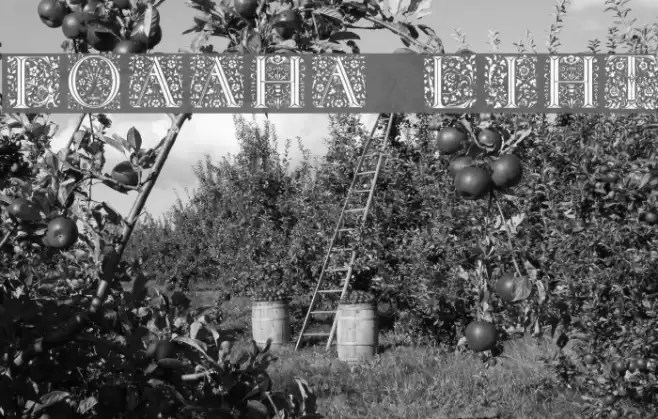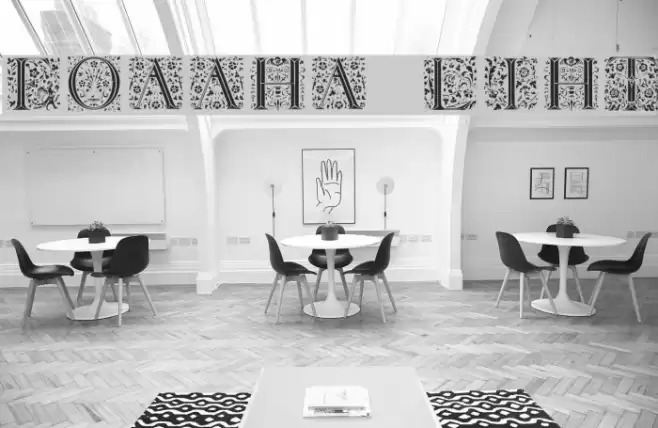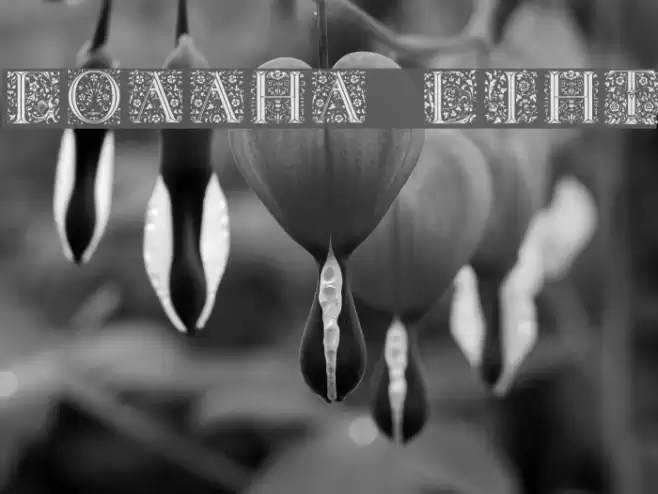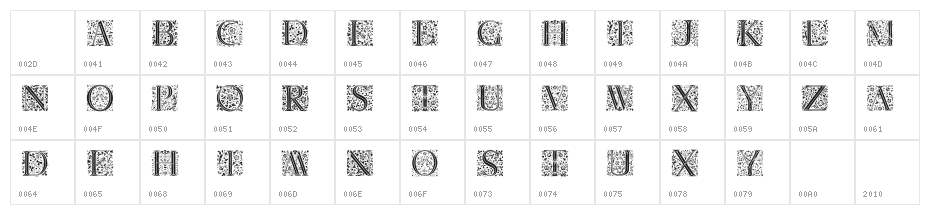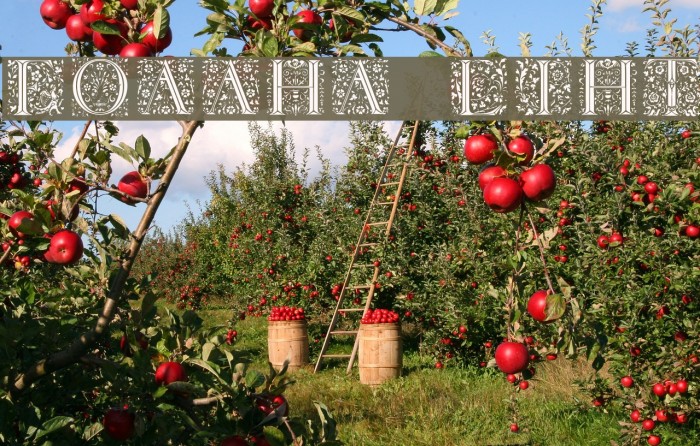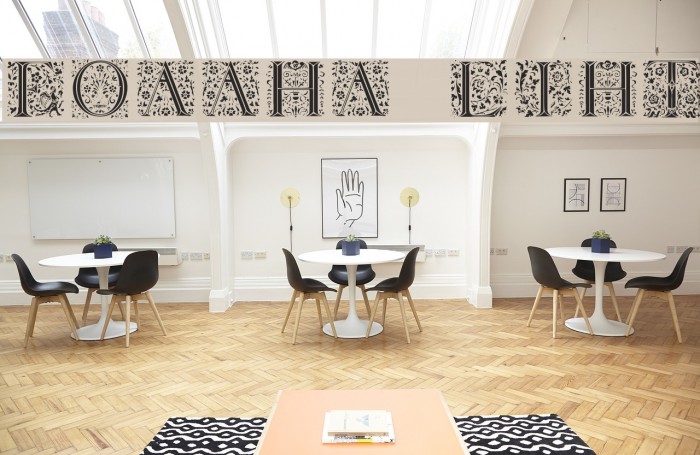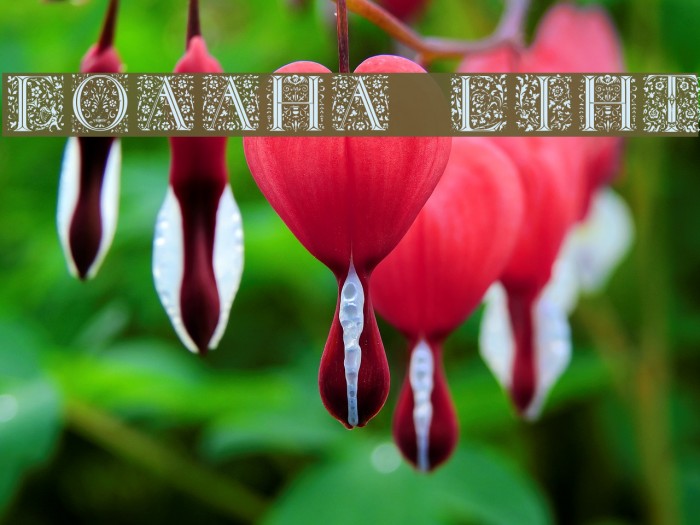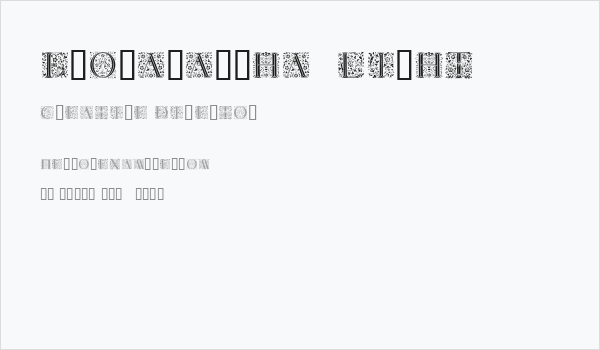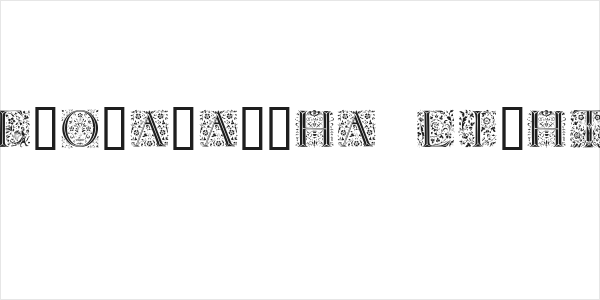
Floralalpha Light Font
Floralalpha Light Description
This font features an intricate floral design within each letter, creating a decorative and ornate appearance. The uppercase letters are adorned with detailed botanical patterns, making them stand out as artistic and elegant. The style is reminiscent of vintage floral motifs, offering a sense of sophistication and charm. This font is ideal for projects that require a touch of nature-inspired elegance, such as invitations, greeting cards, or decorative headings. The absence of lowercase letters and numbers suggests a focus on decorative use rather than practical text applications.
An ornate, floral-themed decorative font with intricate botanical patterns from Uncategorized fonts.
- Overall Style: Vintage